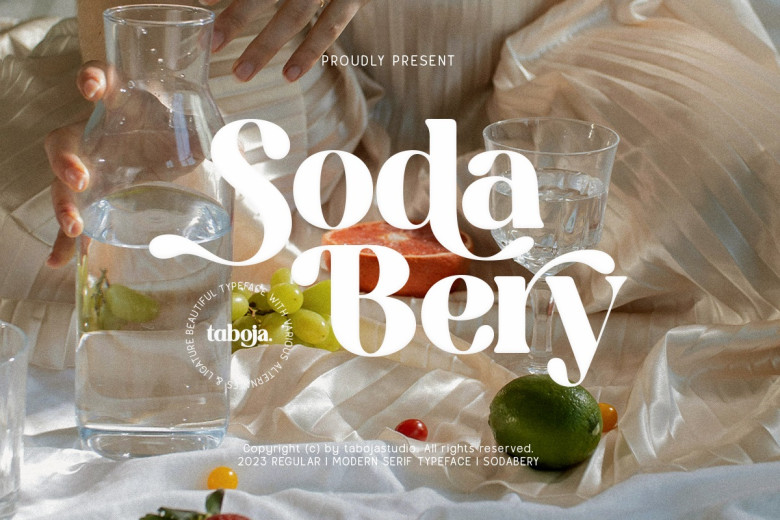
Sodabery Font
Sodabery is an elegant modern serif typeface perfect for projects requiring an antique aesthetic, such as packaging, posters, logos, or promotional materials that strive to achieve this feel. Using Sodabery font will add dimension to your designs with its retro charm and distinctive characteristics – giving them that nostalgic feeling viewers are drawn to.
Sodabery Serif Font